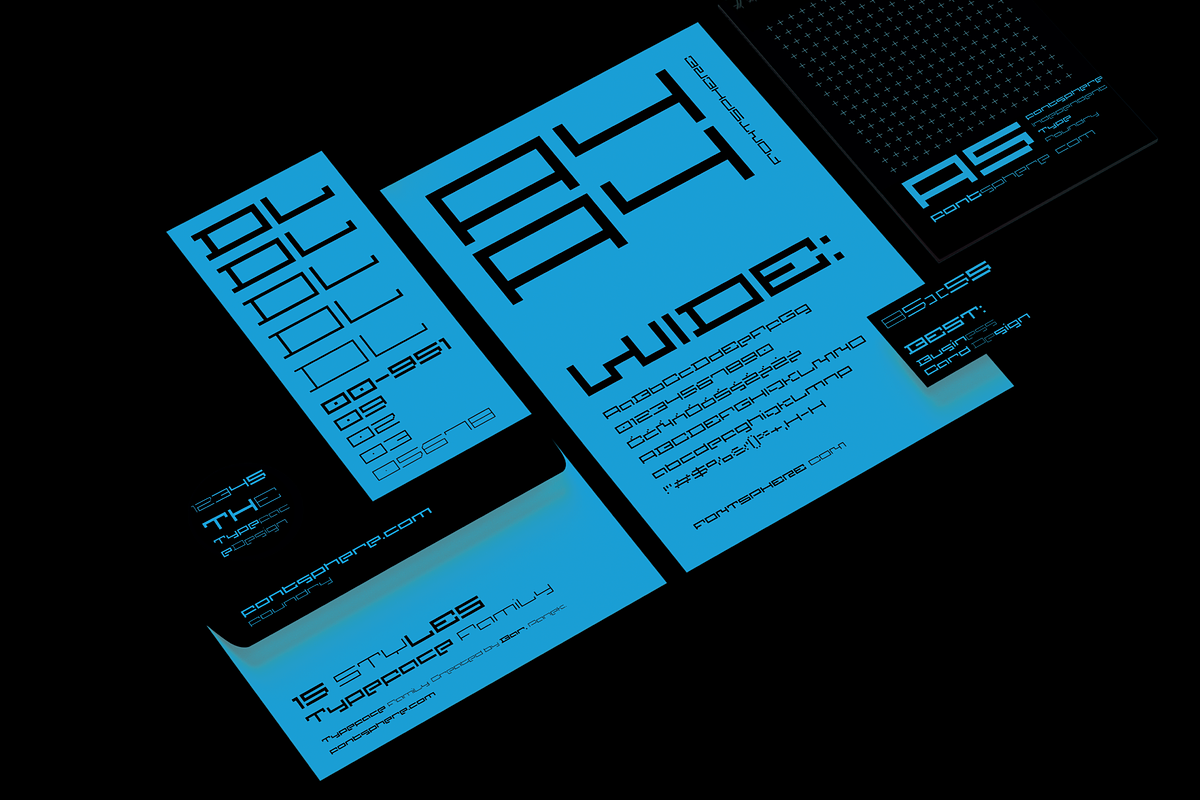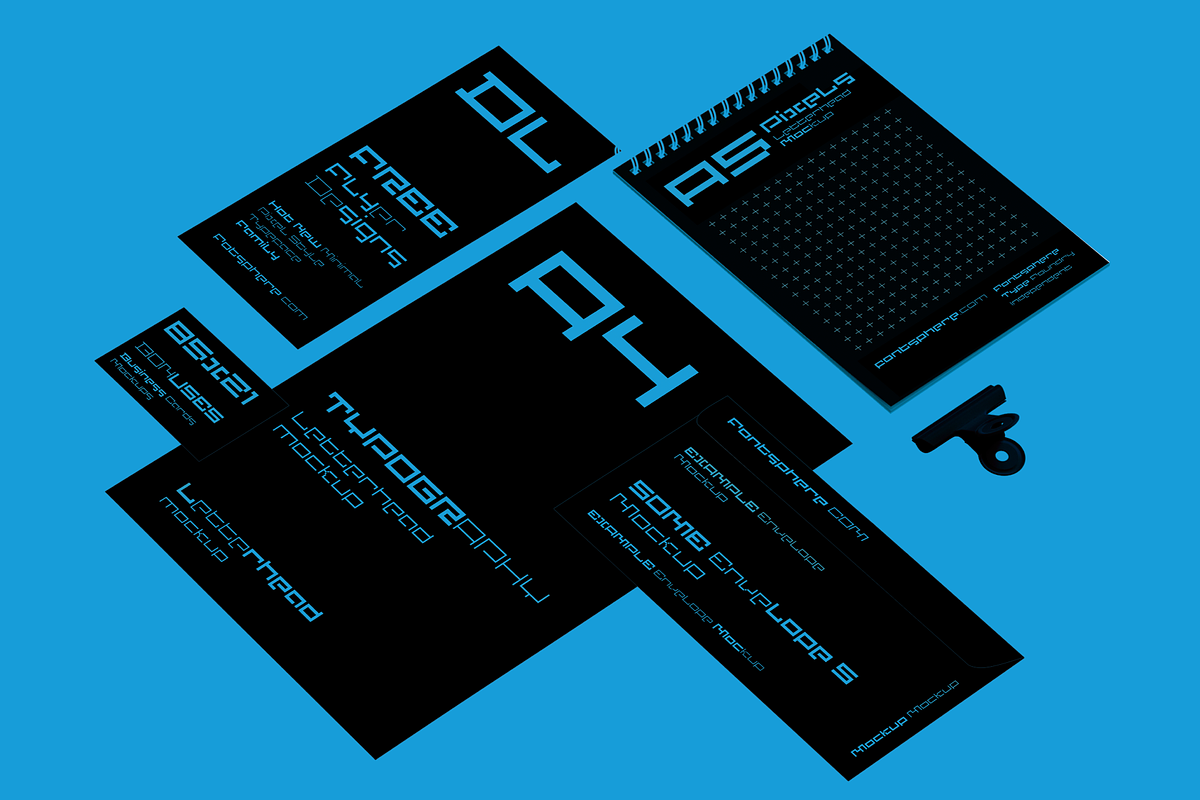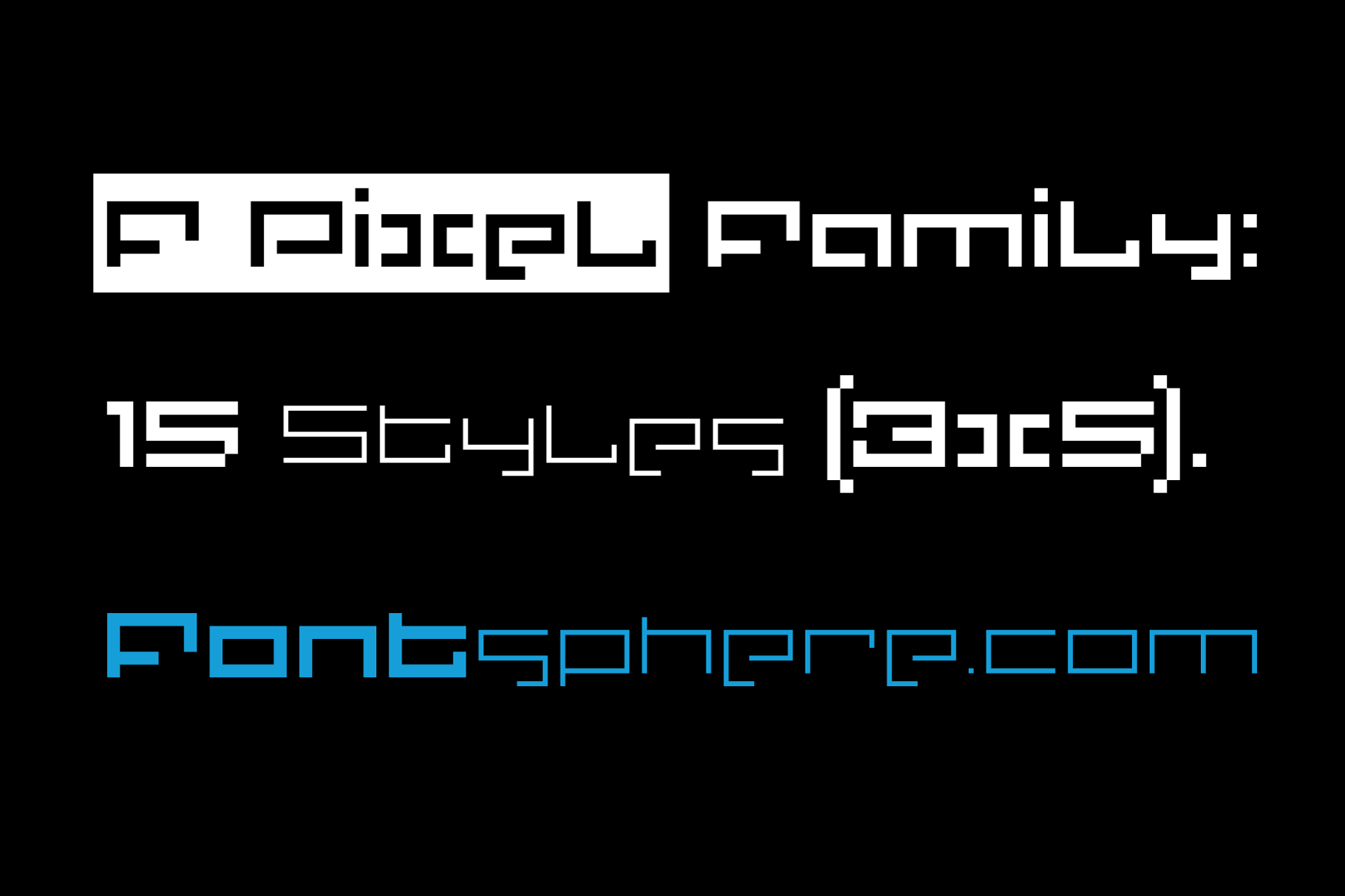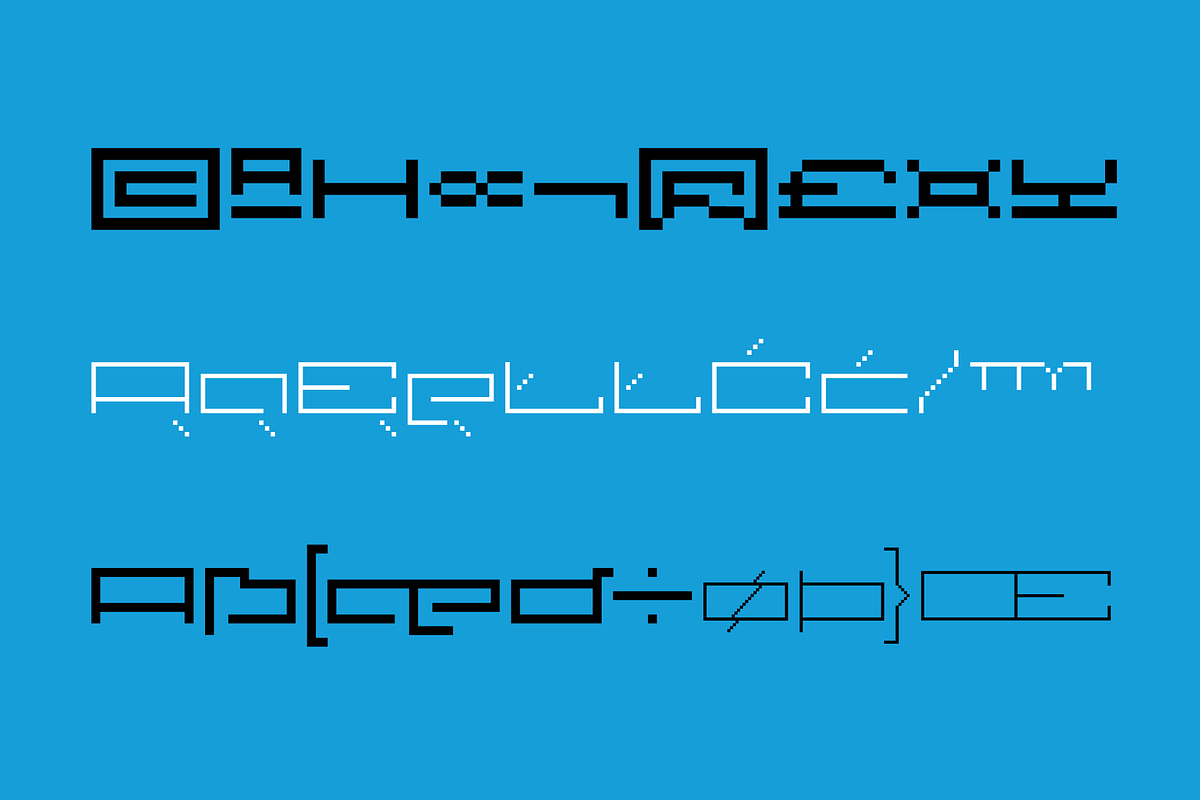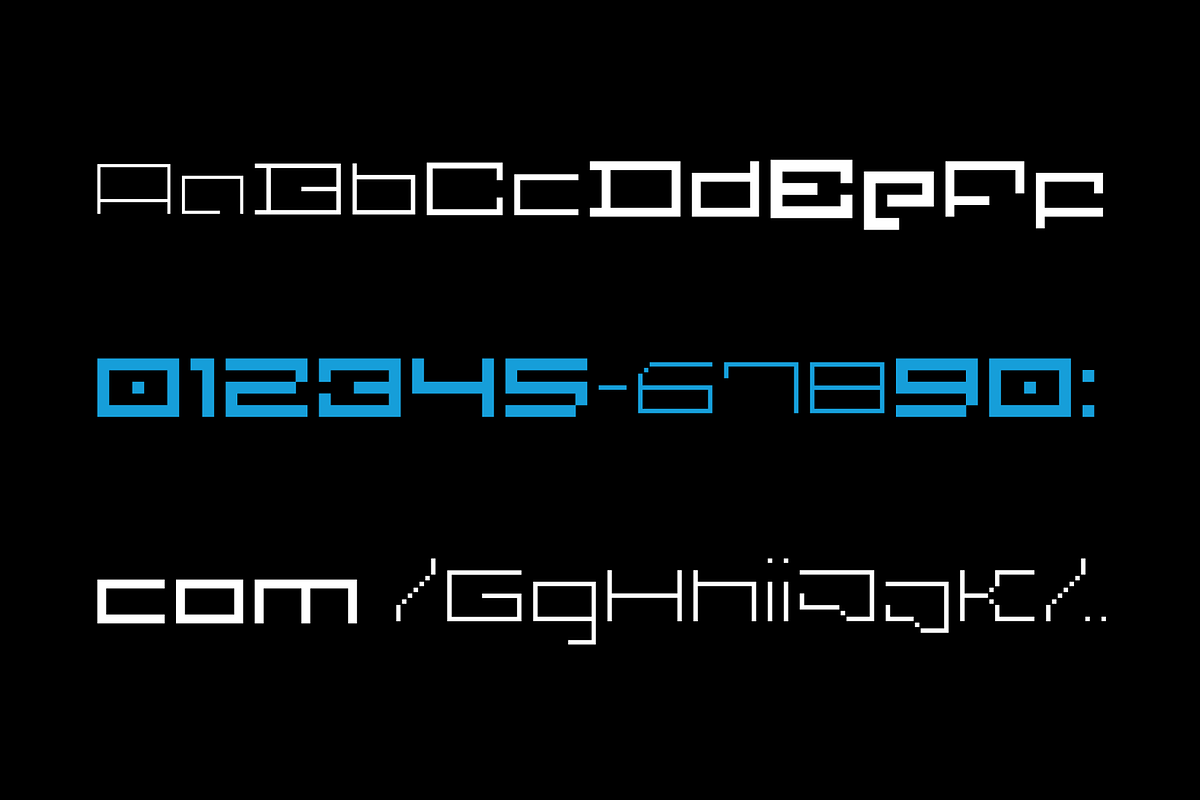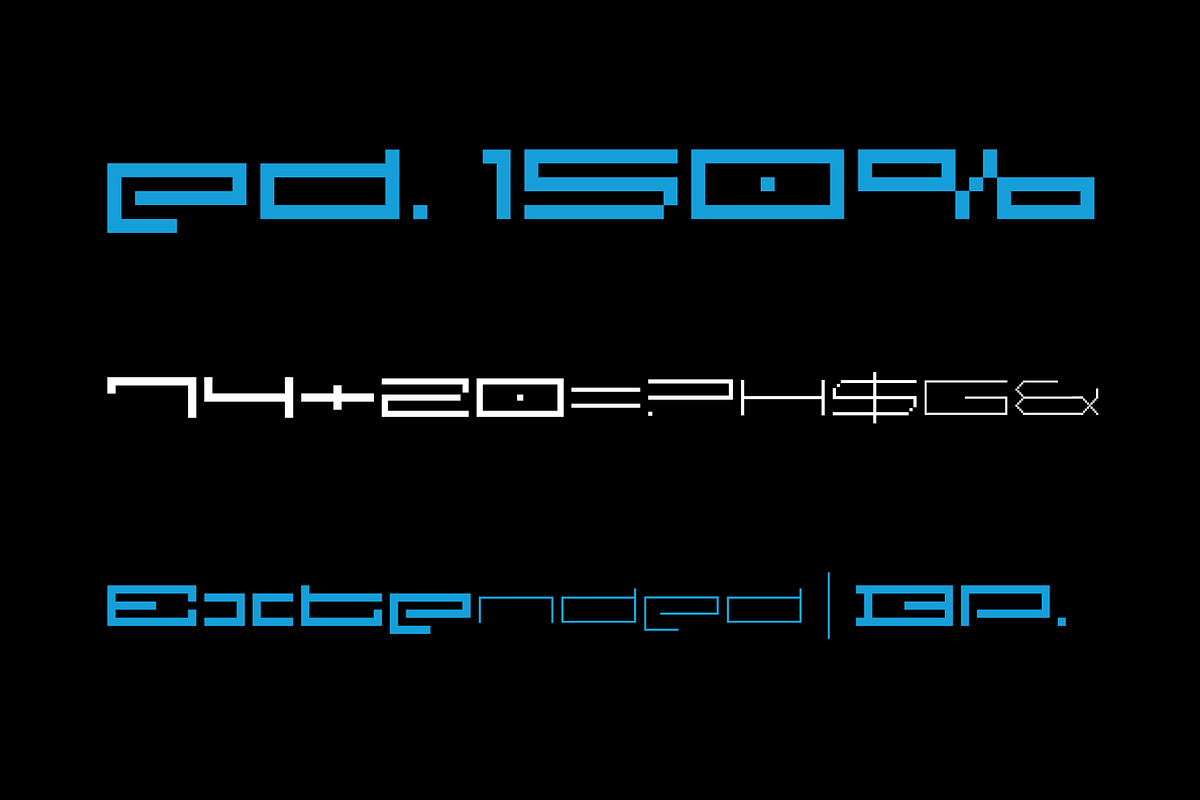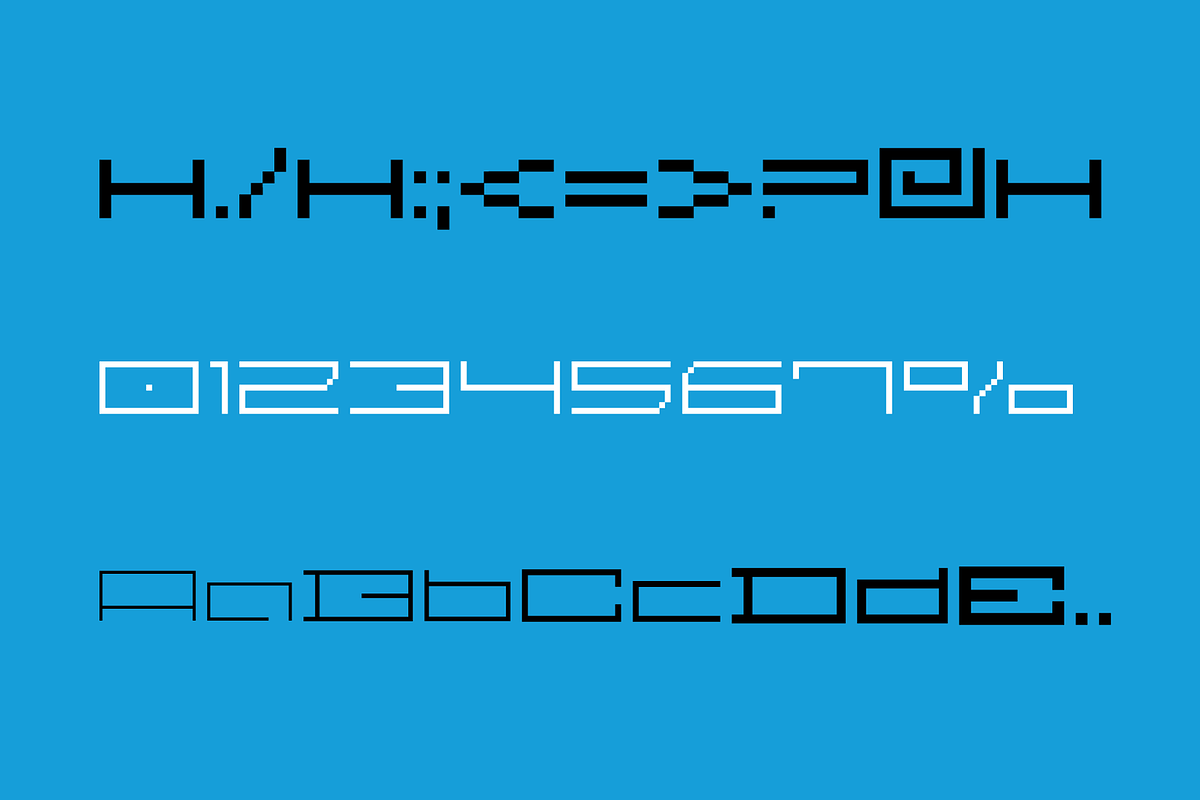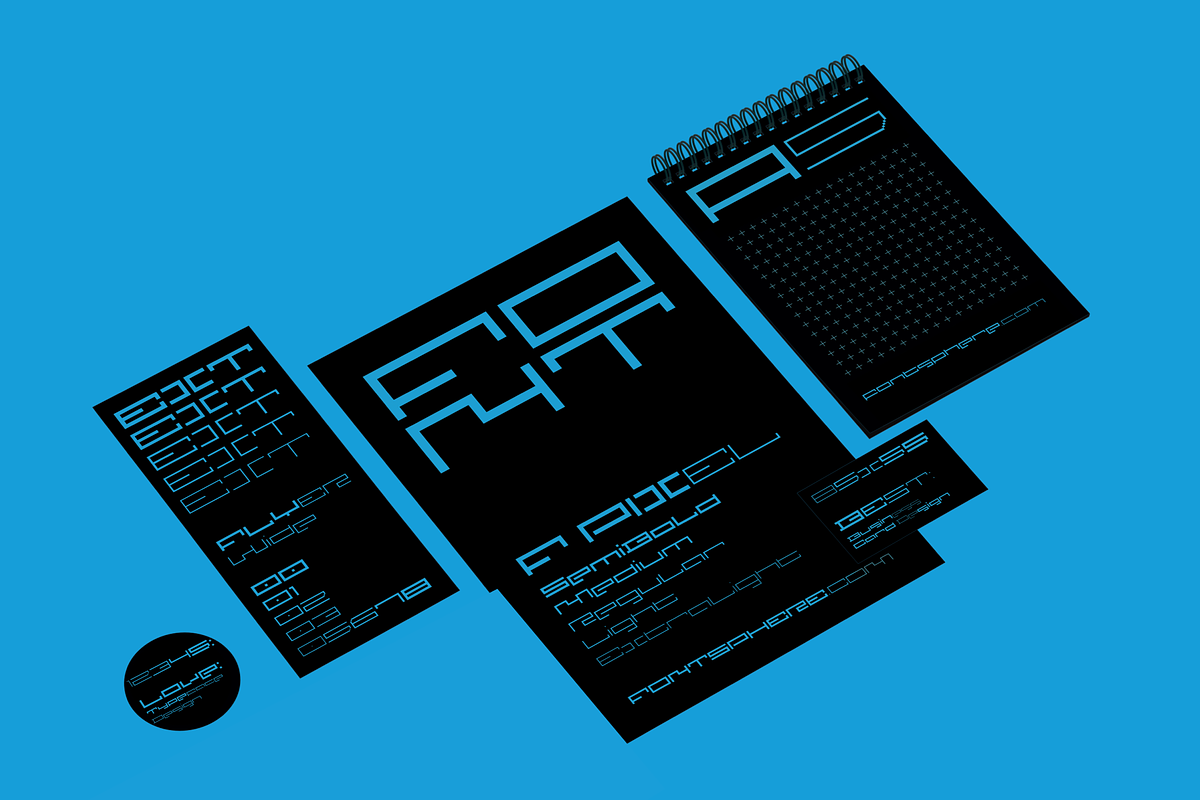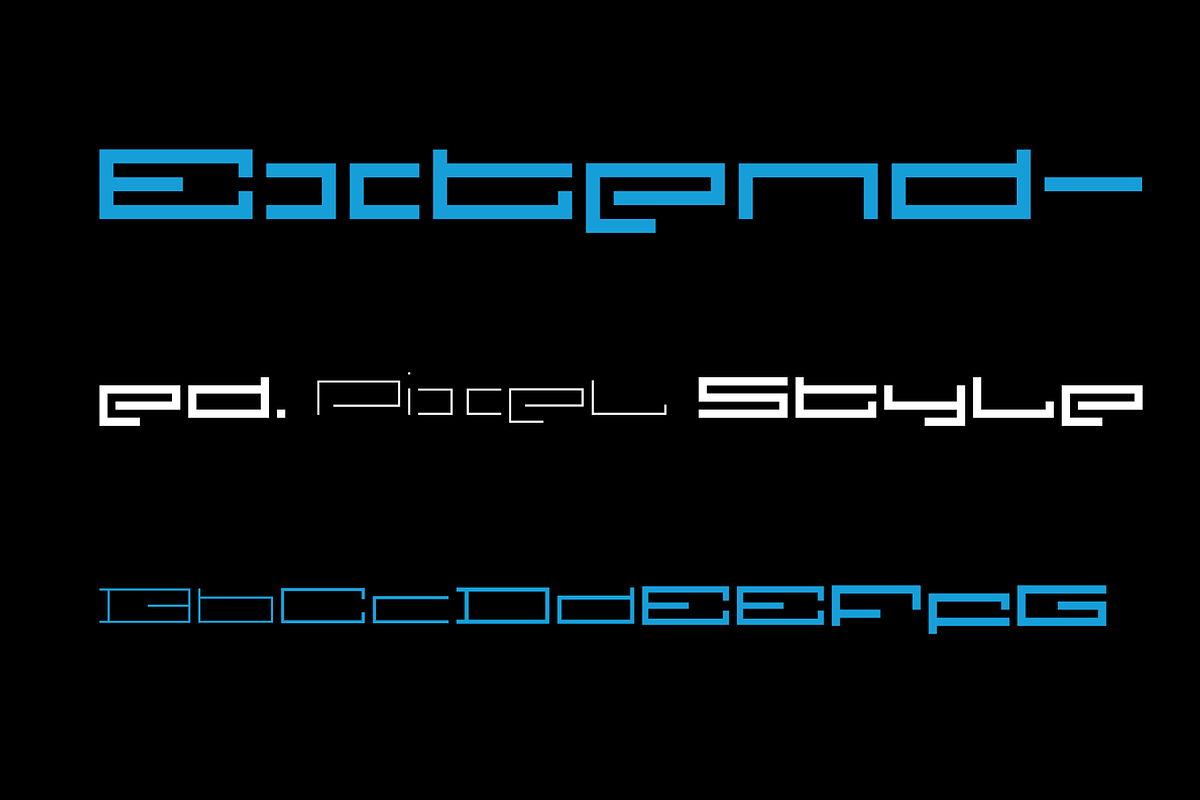
F Pixel - Typeface Family 15 Styles
F Pixel – A Geometric Pixel Typeface Family
Minimalist, futuristic, and inspired by pixel art, F Pixel is a typeface built on pure geometry, without curves or unnecessary details. Its precise, digital aesthetic makes it a perfect fit for modern design projects. This is more than just a set of fonts. It is a complete typographic system that gives you full control over style and readability. 15 Fonts for Maximum Versatility
F Pixel is a comprehensive typeface family, featuring 15 fonts across three widths and five weights:
Widths: Normal, Wide, Extended Weights: ExtraLight, Light, Regular, Medium, SemiBold
This range allows for great flexibility. Whether you need a bold, eye-catching headline or a more subtle typeface for a clean layout, F Pixel adapts to your project. Designed for Precision and Impact -- With its unique construction and strong visual presence, F Pixel works well in many areas, including:
- Branding & Logo Design – Gives a modern and futuristic identity
- Web & UI Design – Offers clarity and precise letterforms for digital interfaces
- Posters & Editorials – Ideal for bold, technology-inspired compositions
- Illustration & Motion Graphics – A great choice for creative and experimental designs
A Reflection of FONTSPHERE’s Aesthetic
F Pixel is designed with the same attention to detail and geometric precision that defines FONTSPHERE’s typefaces. It combines simplicity with a distinct character, making it a versatile choice for a wide range of creative projects.